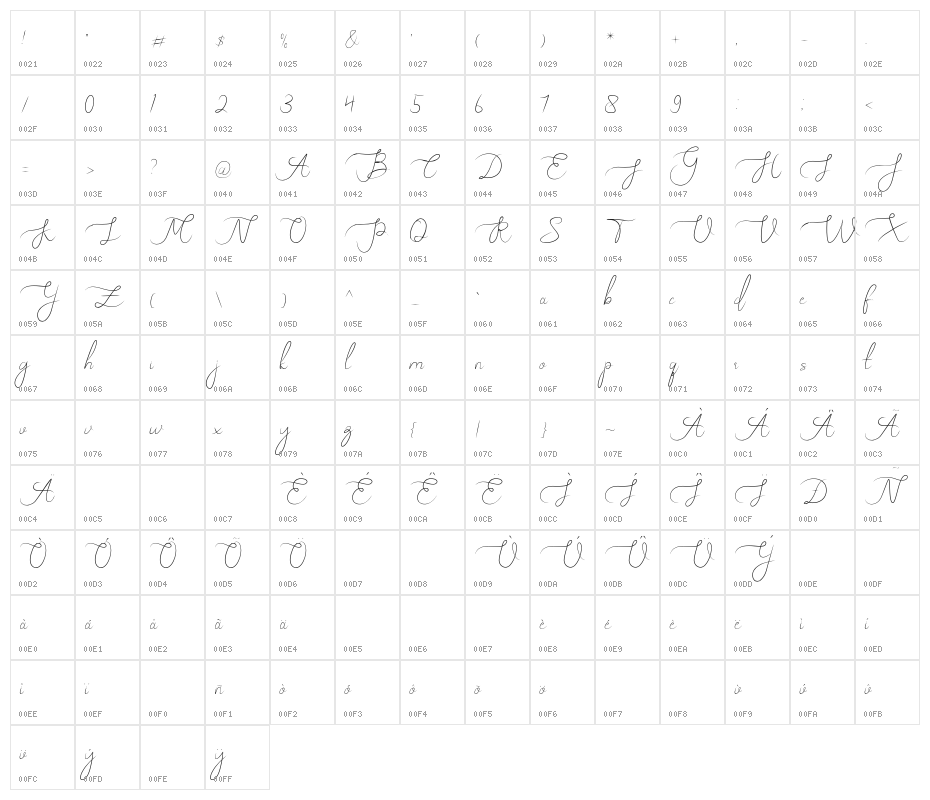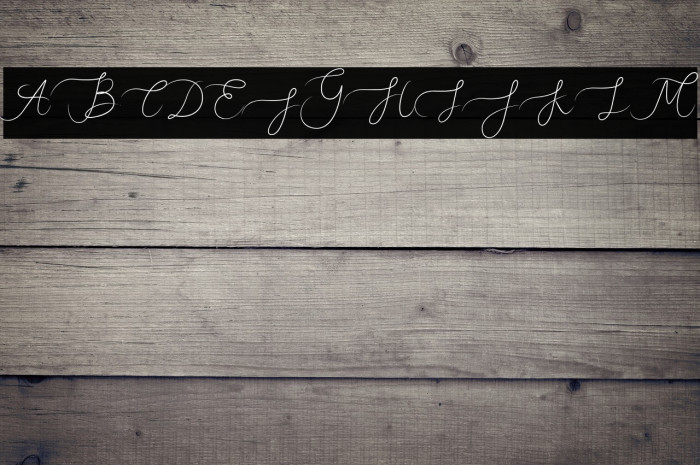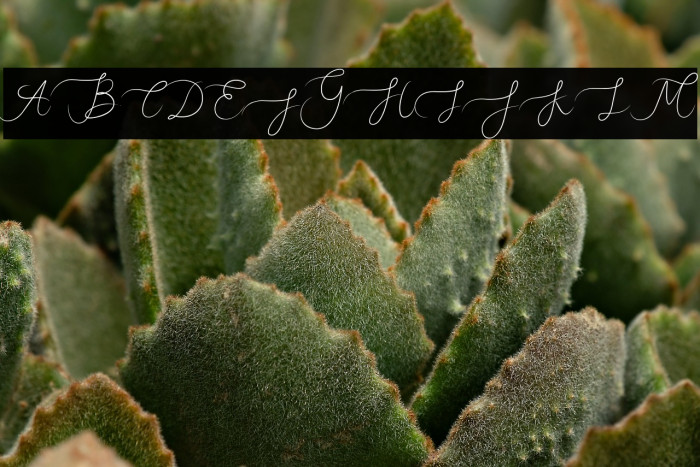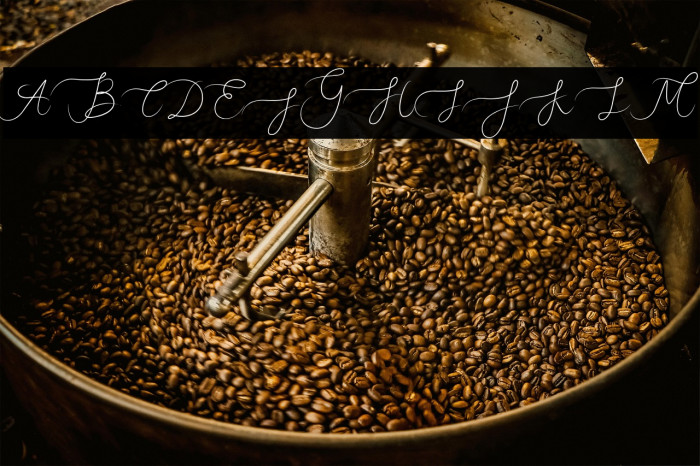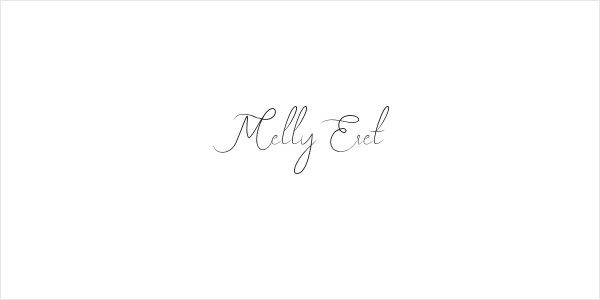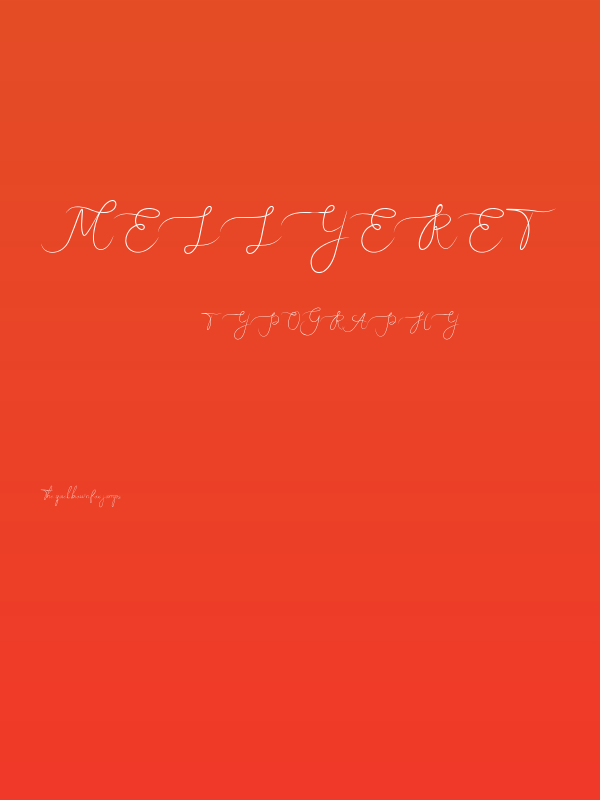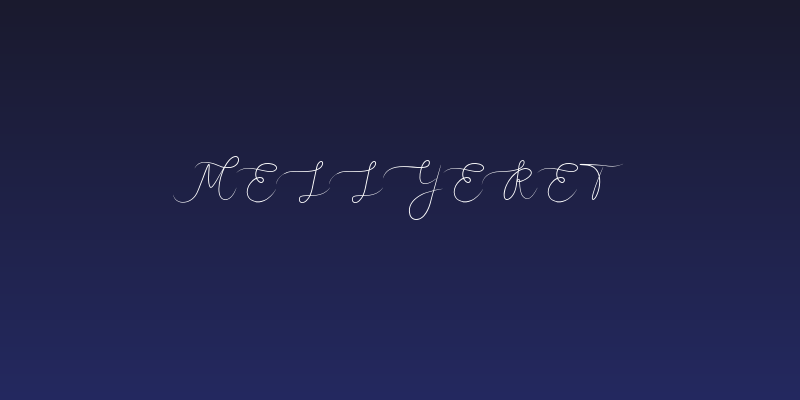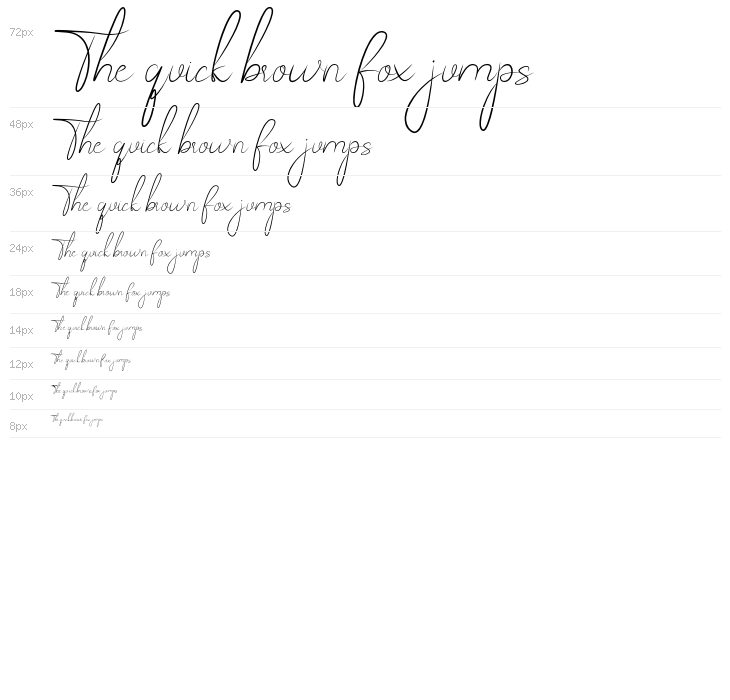
MellyEret Font
MellyEret Description
This elegant script font features flowing, interconnected letters with a delicate and sophisticated appearance. The uppercase characters are gracefully looped, while the lowercase letters maintain a consistent, fluid style. The numerals are designed with a similar elegance, ensuring a cohesive look across all characters. Special characters are included, maintaining the same refined aesthetic. The font's thin strokes and high contrast give it a light and airy feel, making it ideal for projects that require a touch of elegance and sophistication.
| Proposed Projects | Ideal for wedding invitations, elegant branding, personal stationery, and decorative quotes. |